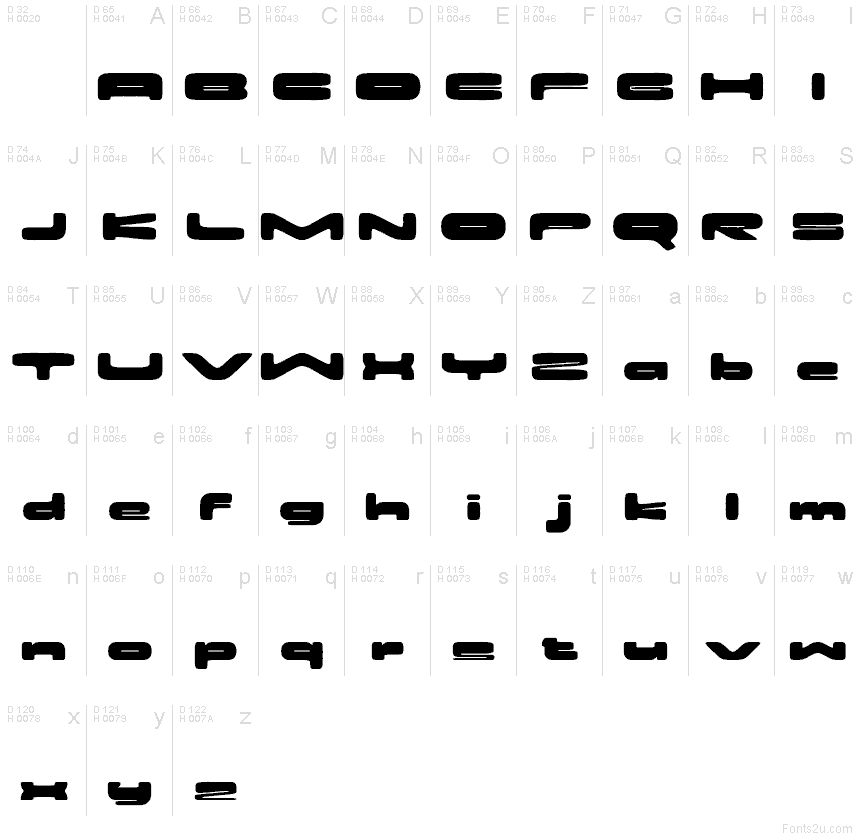
CSVolansDrawn-Regular Demo
CS Volans Drawn font by Craft Supply Co. is an exciting new product with futuristic qualities. Characters are wide, geometric-ly shaped, and constructed unconventionally for a style that fascinates at first sight. The pure bold weight adds emphasis to any written text which will keep typography lovers happy while using this font.
There is almost no limit on how you can use the sel free display font. Titles, headlines, branding projects, advertisements, posters, flyers… but also website design. Its mysterious and very unique shape makes it suitable for video game or movie poster designs as well as YouTube channel covers or video thumbnails!